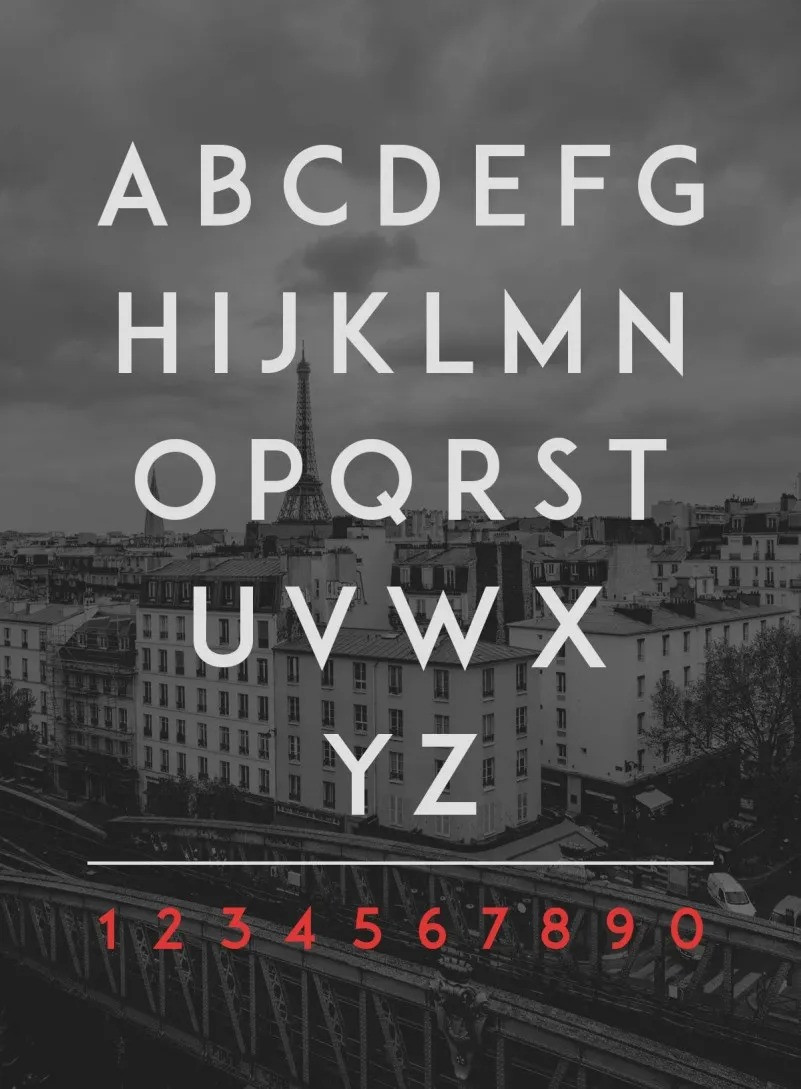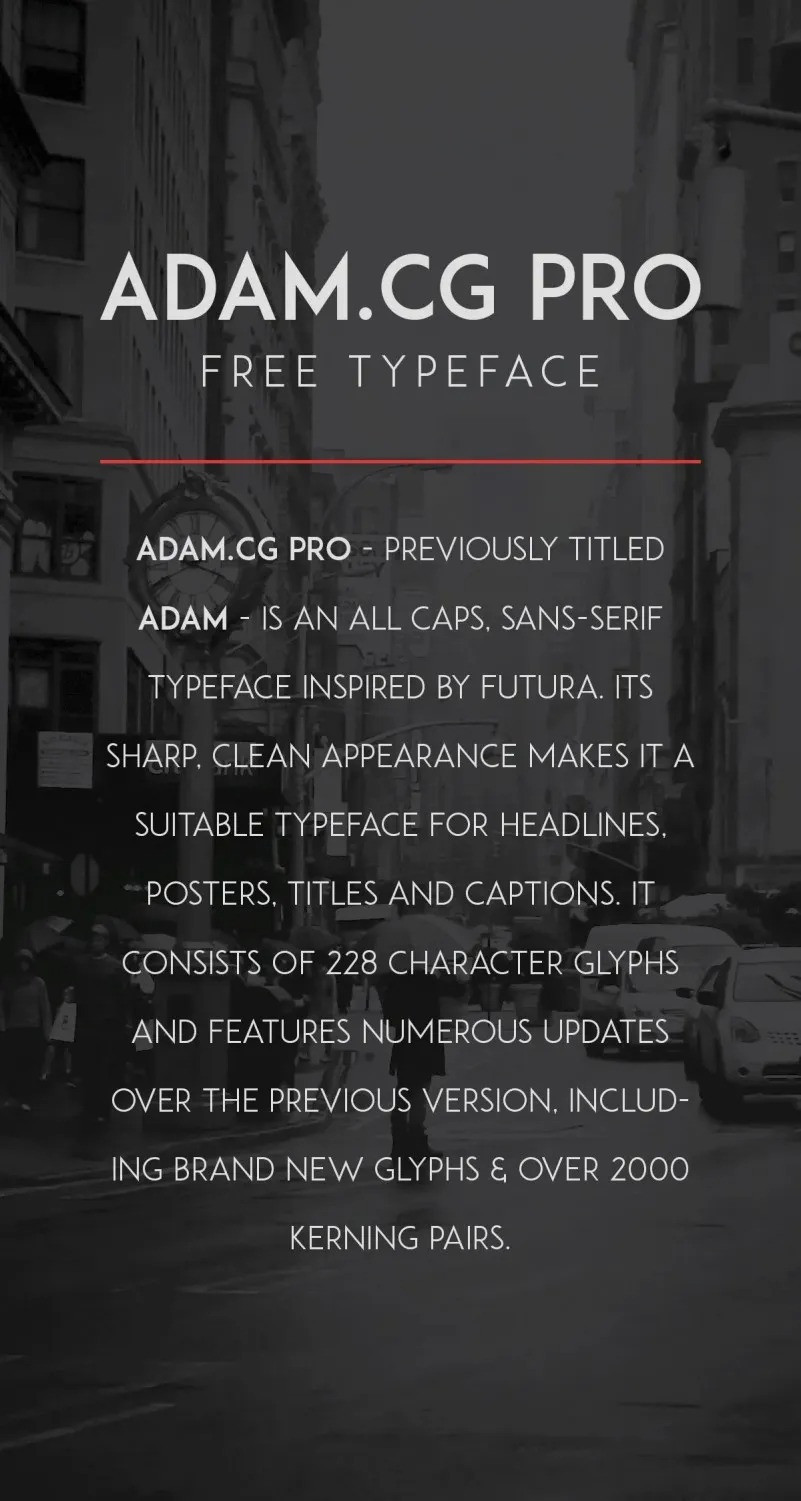
ADAM.CG PRO-Light Version is a part of the ADAM.CG PRO family, an All Caps, Modern Sans-Serif typeface inspired by Futura. The light version is optimized for both small and large sizes, which makes it a suitable typeface for all kinds of type, including body text, headlines, titles and logos.
ADAM.CG PRO Font Free